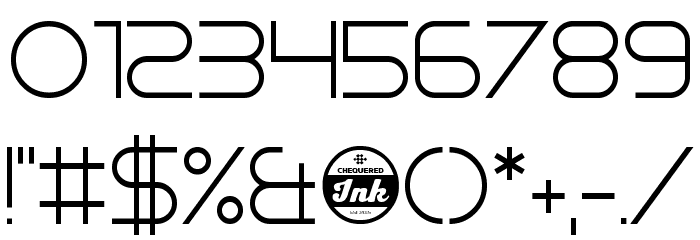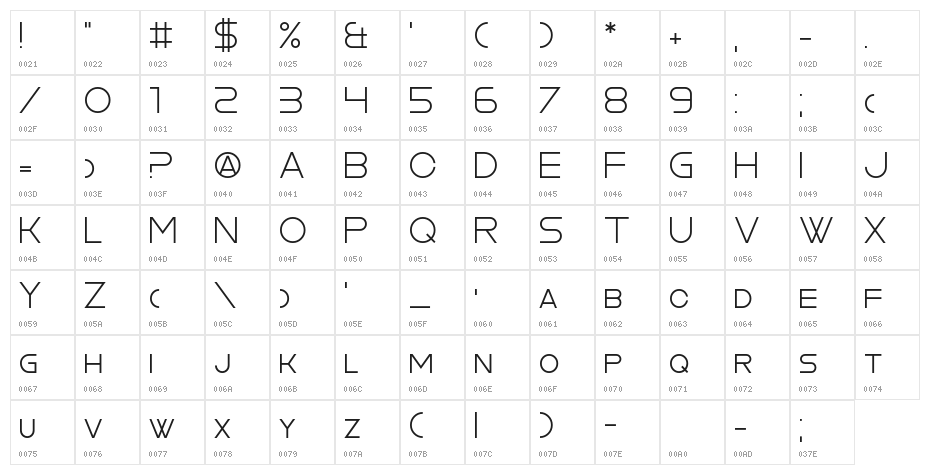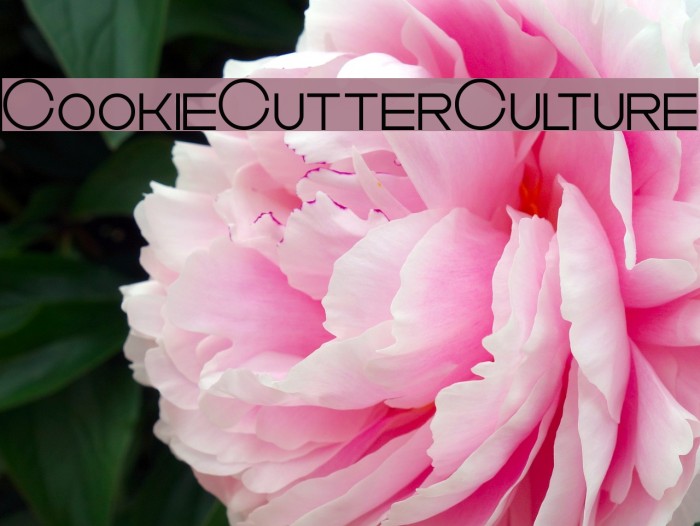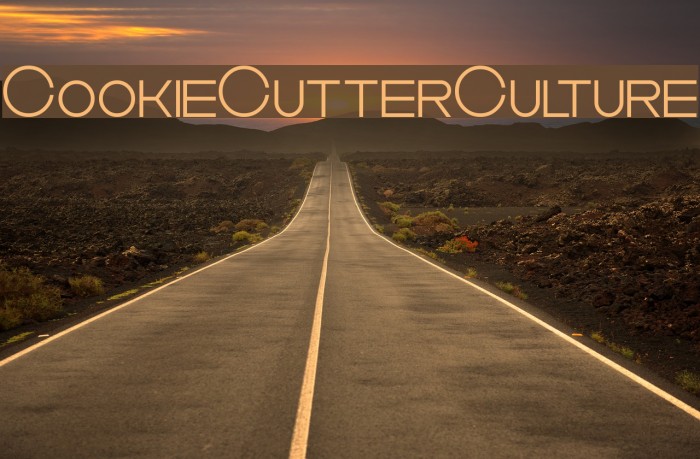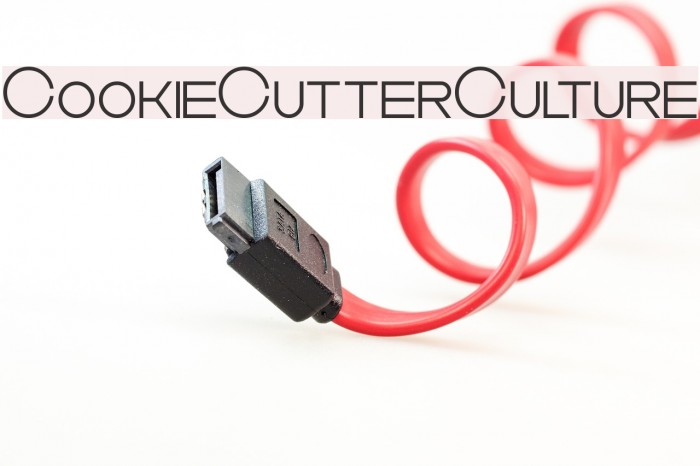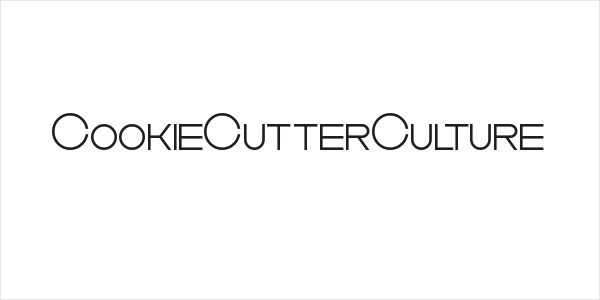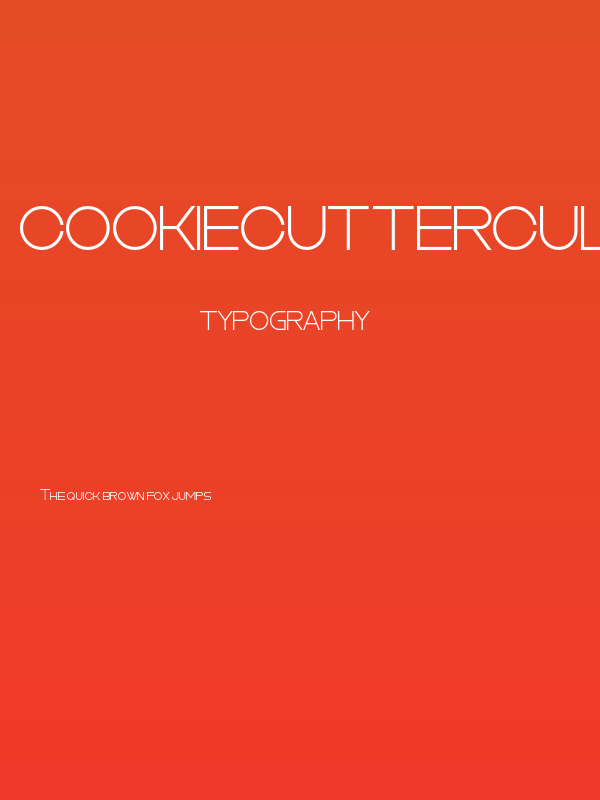
CookieCutterCulture Font
CookieCutterCulture Description
This font features a sleek, geometric design with clean lines and a modern aesthetic. The characters are constructed with uniform stroke widths, giving it a balanced and harmonious appearance. The uppercase letters are bold and assertive, while the lowercase letters maintain a consistent style that complements the overall look. The numerals are clear and easy to read, making them suitable for various applications. Special characters are included, adding versatility to the font's use. Its minimalist design makes it ideal for contemporary projects that require a touch of sophistication.